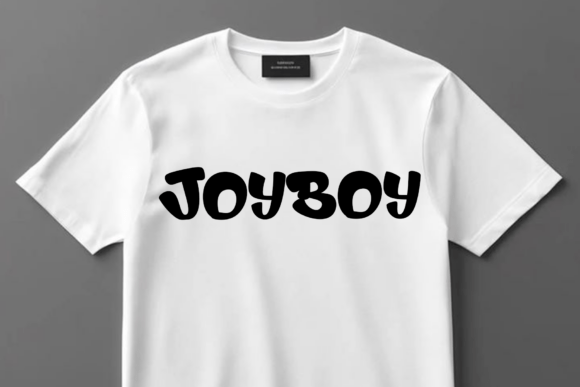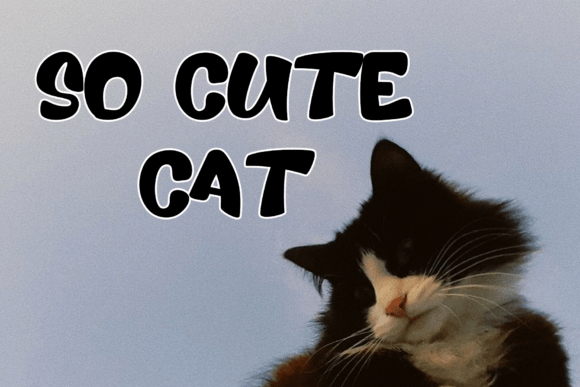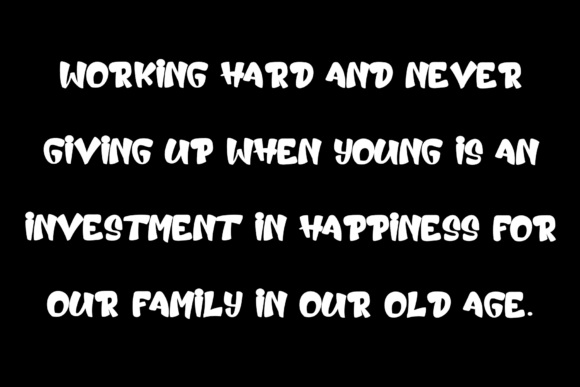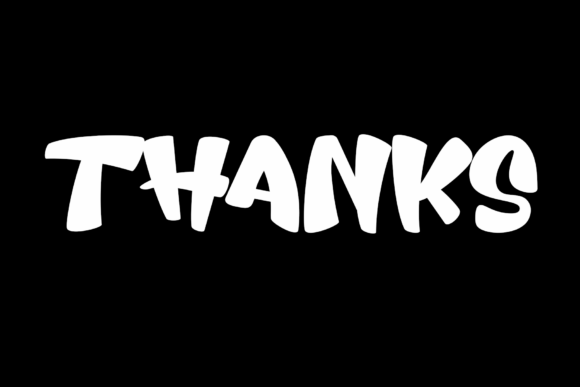
Doodle Font: Adding a Playful Touch to Your Designs
Are you looking for a font that can bring energy and creativity to your projects? Look no further than the Doodle Font. This playful and bold display font is perfect for designers and crafters who want to add a cheerful and approachable touch to their work. In this article, we’ll explore the features and benefits of the Doodle Font, and how it can be used to enhance your designs.
What is Doodle Font?
Doodle Font is a chunky, hand-drawn display font that is designed to bring a playful and creative vibe to any project. Its unique, professional balance makes it perfect for a wide range of applications, from kids’ designs and posters to comics, merchandise, and more. The font’s bold and playful style is sure to grab attention and add a touch of personality to your work.
Key Features of Doodle Font
- Playful and Bold: Doodle Font is a display font that is designed to make a statement. Its bold and playful style is perfect for headlines, titles, and other design elements that need to stand out.
- Chunky and Hand-Drawn: The font’s chunky, hand-drawn style gives it a unique and organic feel that is perfect for designs that need a personal touch.
- Professional Balance: Despite its playful style, Doodle Font has a professional balance that makes it suitable for a wide range of applications, from kids’ designs to business branding.
- Versatile: Doodle Font is a versatile font that can be used for a wide range of projects, including posters, comics, merchandise, and more.
Benefits of Using Doodle Font
So why should you use Doodle Font in your designs? Here are just a few benefits of using this playful and bold font:
- Adds Energy and Creativity: Doodle Font is designed to bring energy and creativity to your designs. Its playful style is sure to grab attention and add a touch of personality to your work.
- Perfect for Kids’ Designs: The font’s playful and cheerful style makes it perfect for kids’ designs, including children’s books, posters, and merchandise.
- Great for Posters and Comics: Doodle Font is also great for posters and comics, where its bold and playful style can be used to grab attention and add visual interest.
- Easy to Read: Despite its chunky style, Doodle Font is easy to read, making it perfect for designs that need to communicate a message.
How to Use Doodle Font in Your Designs
So how can you use Doodle Font in your designs? Here are a few ideas to get you started:
- Kids’ Designs: Use Doodle Font to create fun and playful designs for kids, including children’s books, posters, and merchandise.
- Posters and Flyers: Use the font to create eye-catching posters and flyers that grab attention and communicate a message.
- Comics and Cartoons: Doodle Font is perfect for comics and cartoons, where its bold and playful style can be used to add visual interest and personality.
- Merchandise: Use the font to create fun and playful designs for merchandise, including t-shirts, mugs, and other items.
Tips and Tricks for Working with Doodle Font
Here are a few tips and tricks for working with Doodle Font:
- Use it Boldly: Don’t be afraid to use Doodle Font boldly and prominently in your designs. Its playful style is designed to grab attention and add visual interest.
- Experiment with Colors: Doodle Font looks great in a wide range of colors, so don’t be afraid to experiment and find the perfect color for your design.
- Mix and Match: Try mixing and matching Doodle Font with other fonts to create a unique and interesting design.
In conclusion, Doodle Font is a playful and bold display font that is perfect for designers and crafters who want to add a cheerful and approachable touch to their work. Its unique, professional balance makes it suitable for a wide range of applications, from kids’ designs to business branding. With its chunky, hand-drawn style and easy-to-read design, Doodle Font is sure to bring energy and creativity to any project.